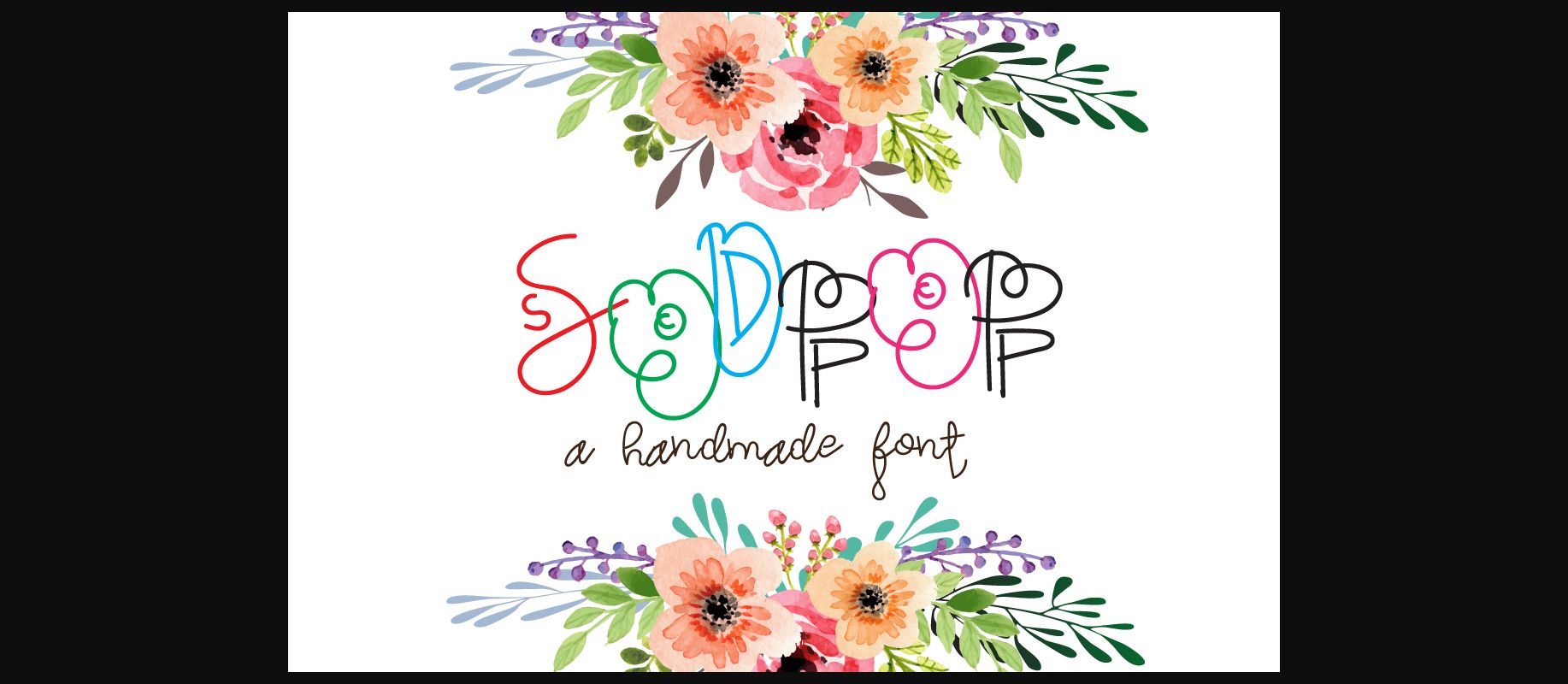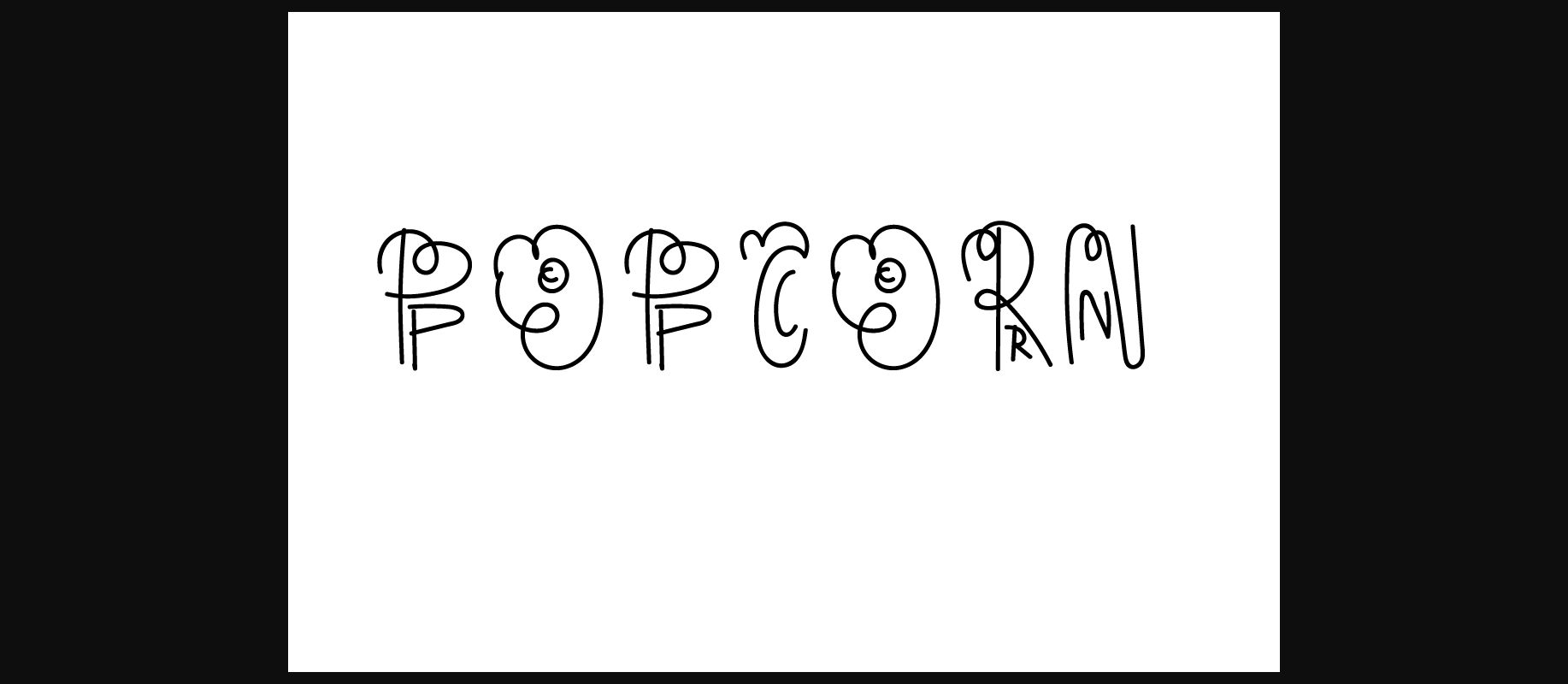
About Sodpop Font
Sodpop is a playful and fun decorative font with an incredibly detailed look. Get inspired by this quirky and fun feel, and turn any design project into a stand out!